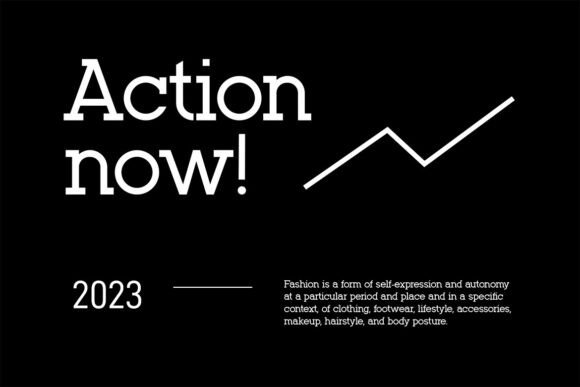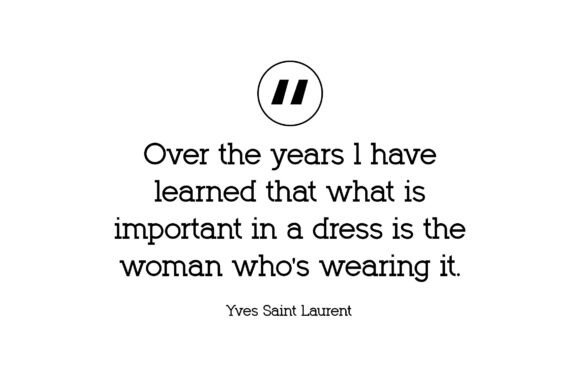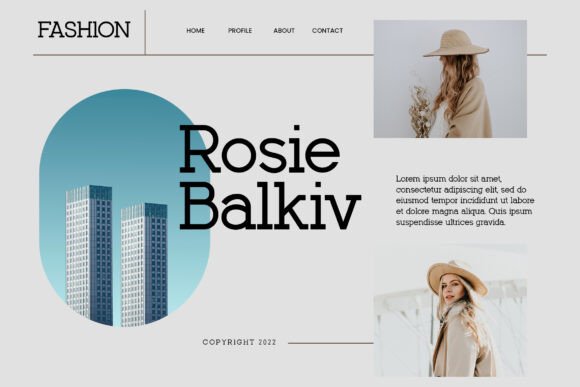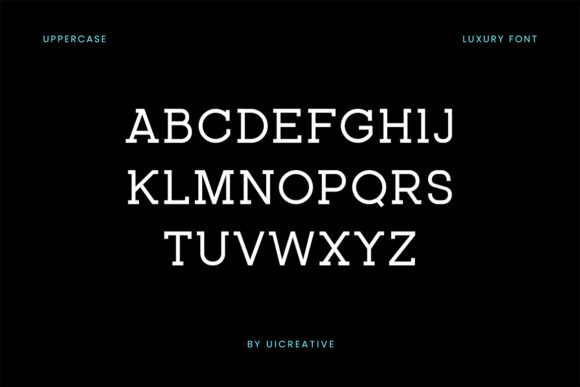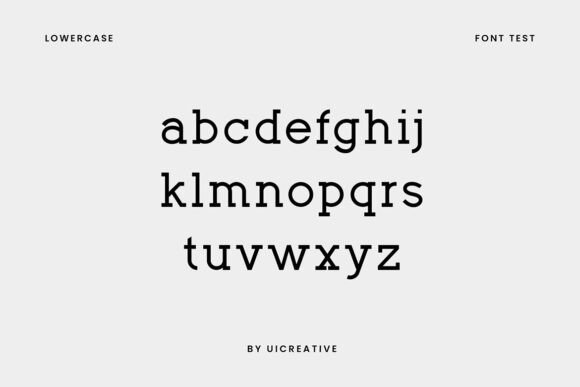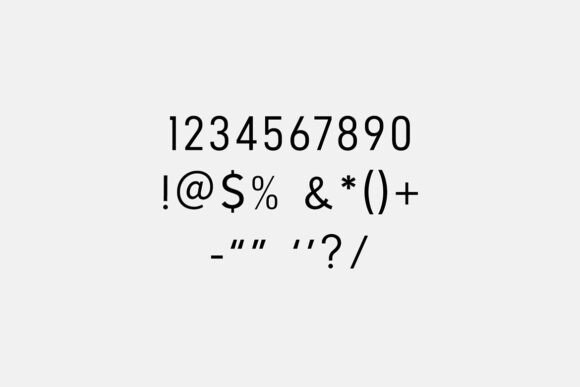
Introduction to Norheast Slab Font
Remember that moment when you’re scrolling through your favorite design feed, and you come across a beautiful, elegant typography that instantly catches your eye? For many designers, that moment is a constant source of inspiration, and it’s what drives us to push the boundaries of creativity. If you’re one of those designers who’s always on the lookout for the perfect font to elevate your next project, you’re in luck because we’re about to introduce you to the stunning Norheast Slab Font.
As a valuable design resource, the Norheast Slab Font is perfect for a wide range of creative projects, from fashion-related branding to editorial design. Its modern display style exudes a sense of sophistication and style, making it an ideal choice for magazine or book covers, website headers, and even typography quotes. With its versatility and high-quality design, this font is sure to be a game-changer for designers looking for a unique and elegant touch to their work.
Key Features of Norheast Slab Font
- High-quality slab serif font designed for creative projects, ideal for use in headings and titles.
- Includes a range of weights, from light to bold, providing flexibility for designers to choose the perfect font for their project.
- Perfect for use in print and digital designs, including posters, flyers, business cards, and more.
Honest Review: Norheast Slab Font
I recently had the opportunity to work with the Norheast Slab Font in a creative project, and I must say I was quite impressed. This font is a great design resource for anyone looking to add a unique touch to their work.
One of the standout features of the Norheast Slab Font is its high-quality design. The font has a clean and modern look, making it perfect for a variety of creative projects. I particularly liked the fact that it comes with a transparent background, which makes it easy to use in different design scenarios.
- High-quality design with a clean and modern look
However, I did encounter some limitations when using the Norheast Slab Font. ⚠️ The font is only available in a limited number of weights, which may not be ideal for projects that require a range of font weights.
Overall, I’m very impressed with the Norheast Slab Font. It’s a great design resource that can add a unique touch to any creative project. With its high-quality design and transparent background, it’s definitely worth considering for your next design project. And the best part? It’s available for free download! ✨
Common Use Cases for Norheast Slab Font
The Norheast Slab Font is a versatile design resource that can be used in a variety of creative projects, including:
- Business cards and stationery